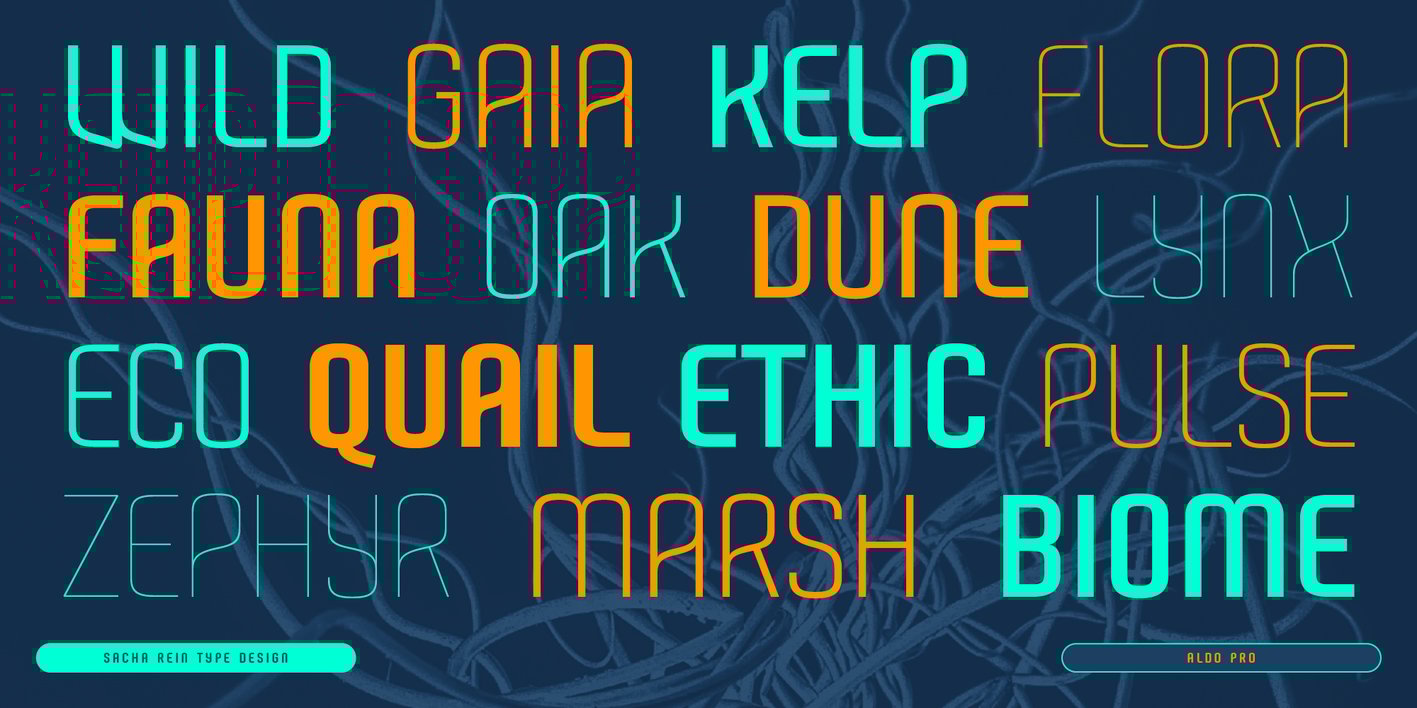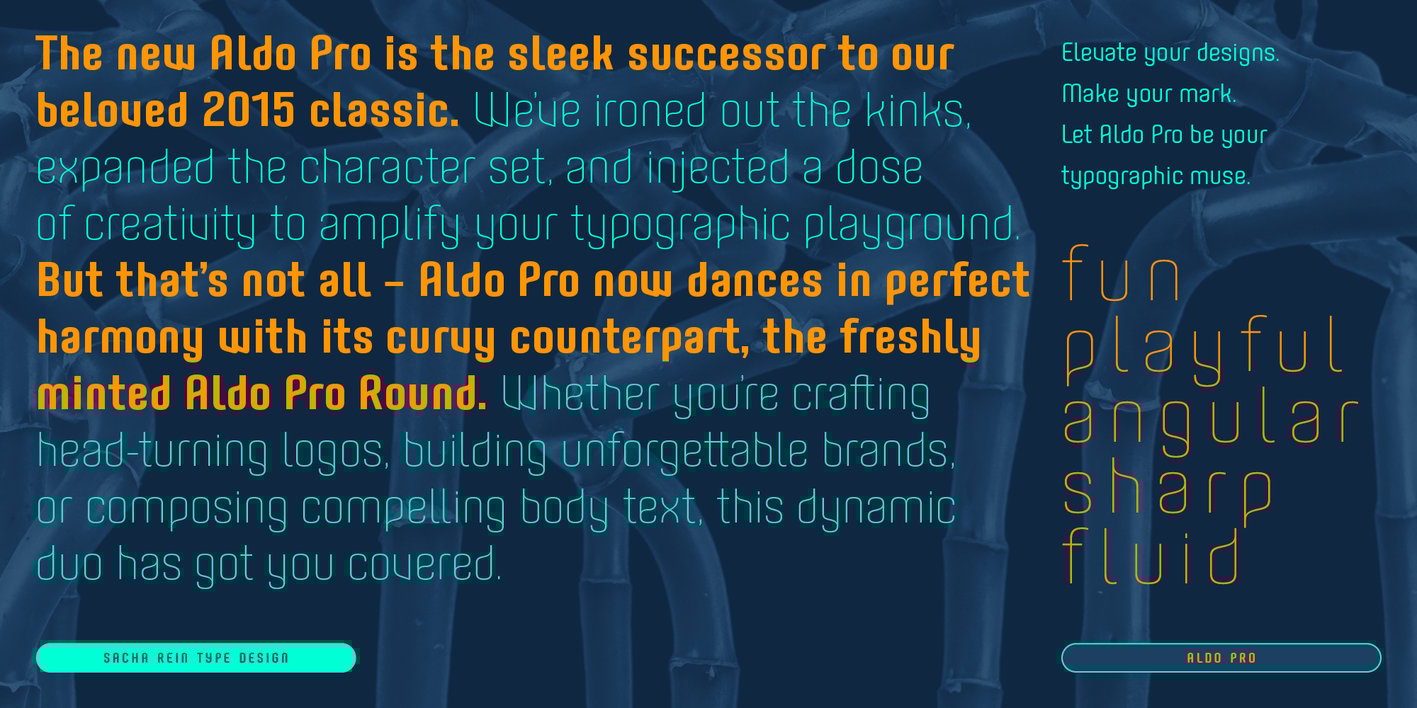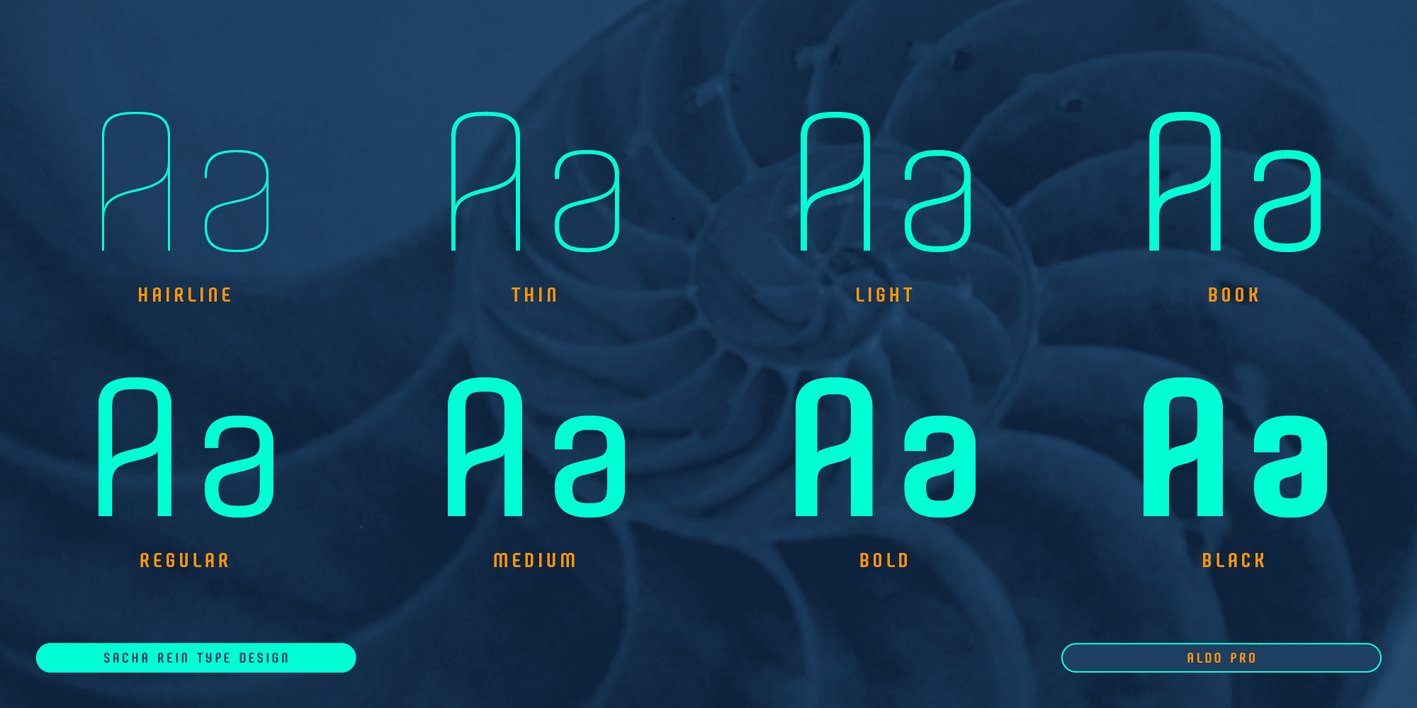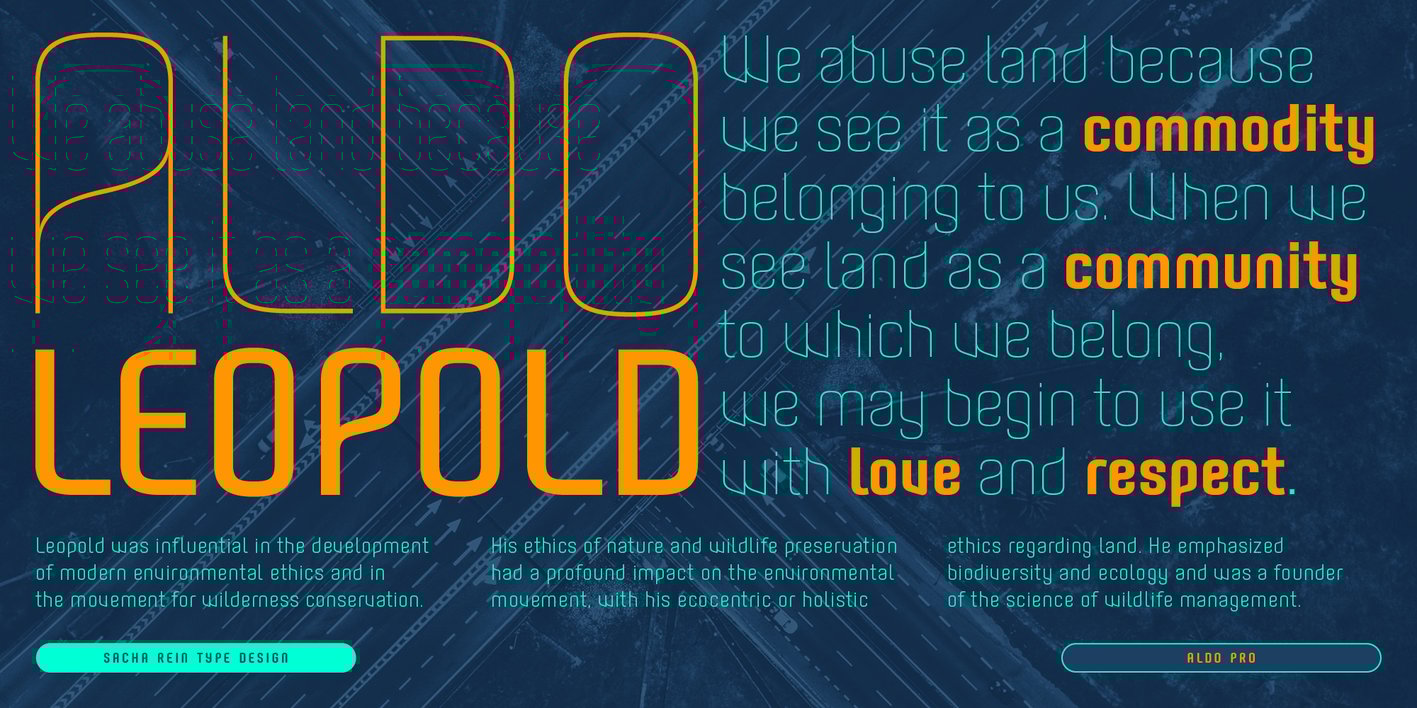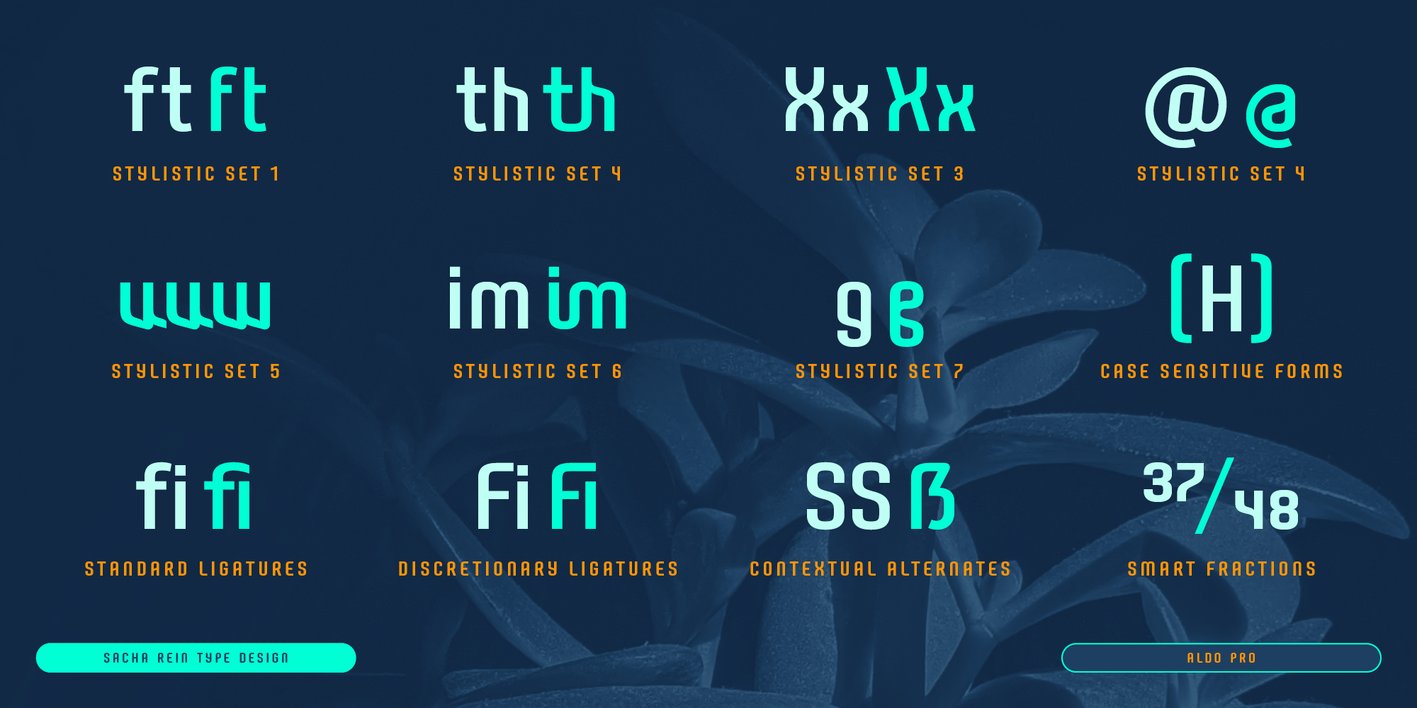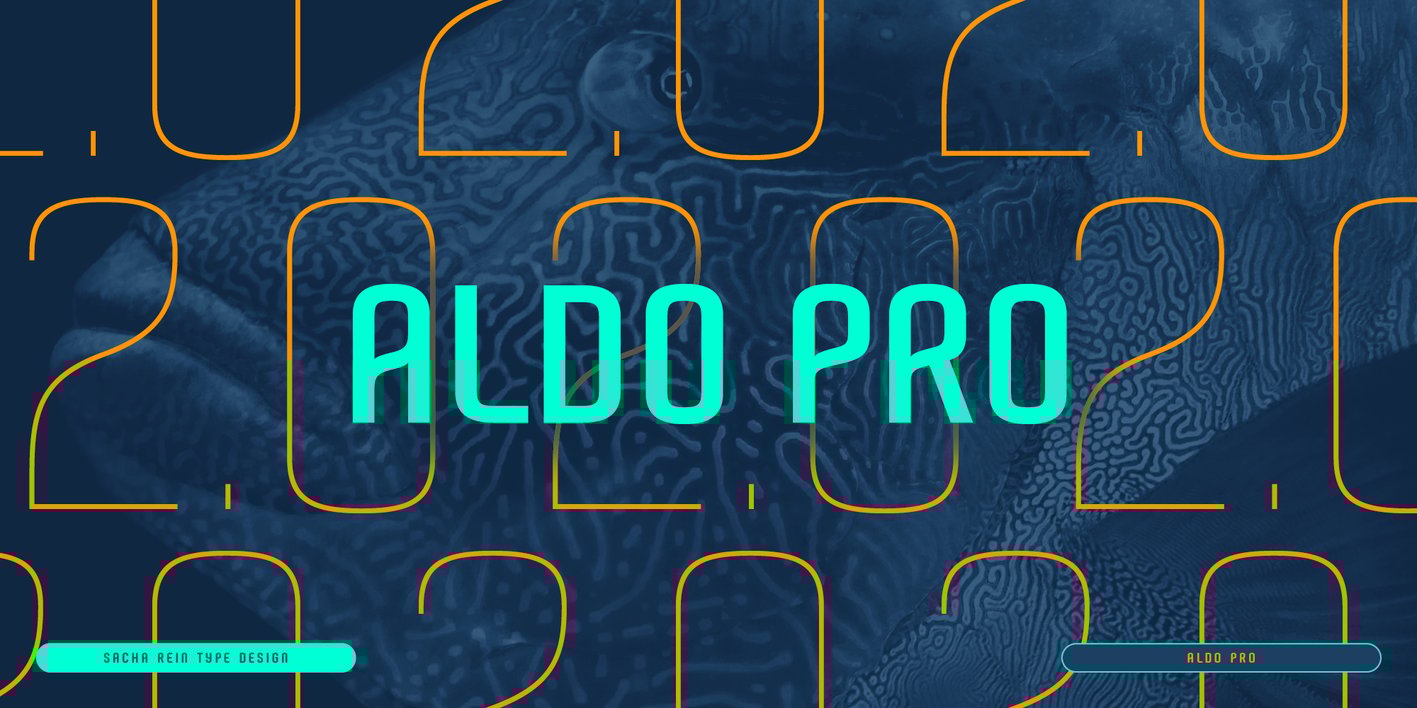
Aldo Pro Font
The new Aldo Pro is the sleek successor to our beloved 2015 classic. We’ve ironed out the kinks, expanded the character set, and injected a dose of creativity to amplify your typographic playground. But that’s not all – Aldo Pro now dances in perfect harmony with its curvy counterpart, the freshly minted Aldo Pro Round. Whether you’re crafting head-turning logos, building unforgettable brands, or composing compelling body text, this dynamic duo has got you covered.